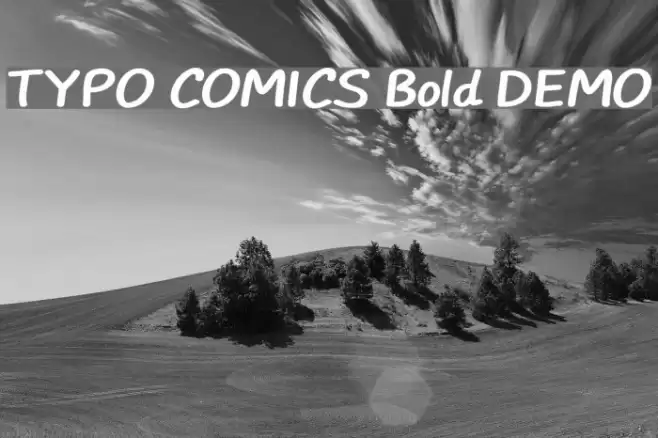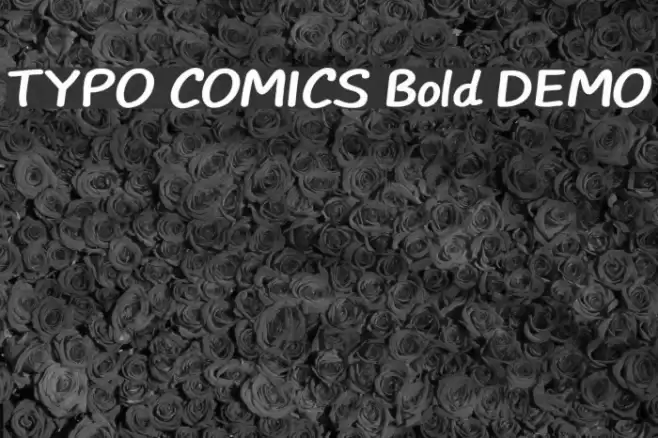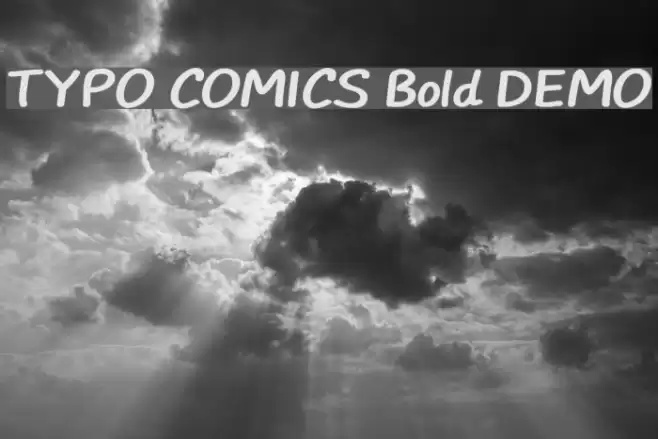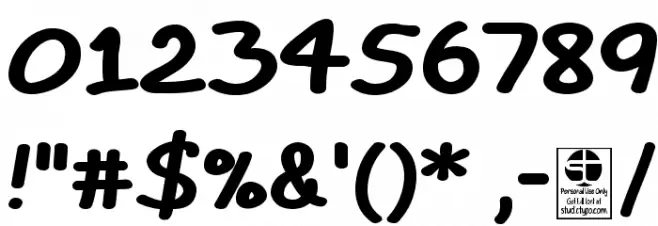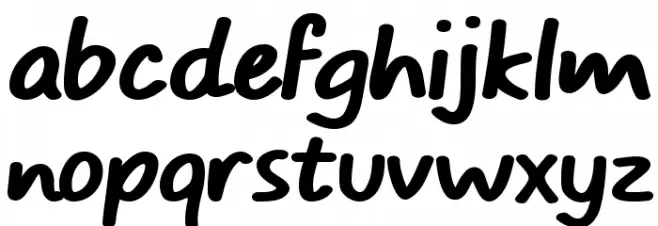
TYPO COMICS Bold DEMO Font
TYPO COMICS Bold DEMO Description
This font features a playful and bold handwritten style, characterized by its smooth, rounded edges and consistent stroke width. The letters are slightly slanted, adding a dynamic and energetic feel. The uppercase and lowercase letters maintain a cohesive look, with the lowercase letters being slightly more rounded. Numbers and special characters are designed to match the overall style, ensuring a uniform appearance across all text. This font exudes a casual and friendly vibe, making it suitable for informal and creative projects.
A bold, playful handwritten font with smooth, rounded edges from Comic fonts.
- Proposed Projects: Ideal for comic books, children's books, playful branding, and casual invitations.
- Overall Style: Playful
- Use Case: Headlines, Logos, Informal Text